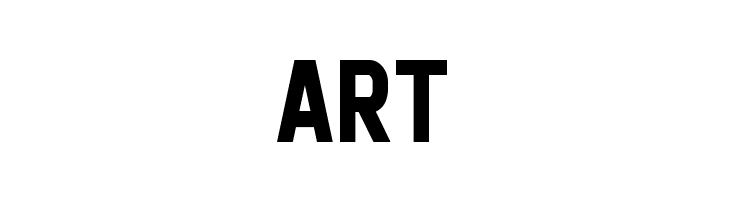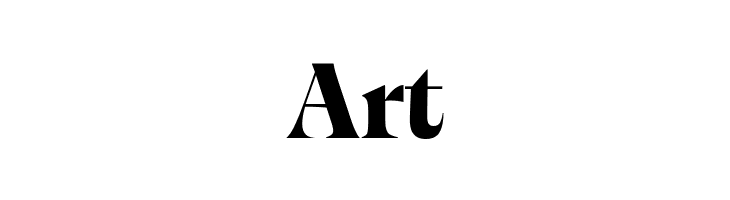
A flowing, cursive font with elegant, interconnected strokes.
A bold, geometric font with a three-dimensional effect and angular shapes.
A casual, handwritten font with fluid, slightly irregular strokes.
A bold, playful font with rounded, bubble-like characters ideal for creative projects.
A bold, playful font with exaggerated curves and angles.
A playful and energetic handwritten font with fluid strokes and a casual charm.
A bold, playful font with rounded, thick strokes and a friendly appearance.
A high-contrast, geometric serif font with a modern yet classic appeal.
A bold, high-contrast serif font with sharp serifs and a dramatic style.